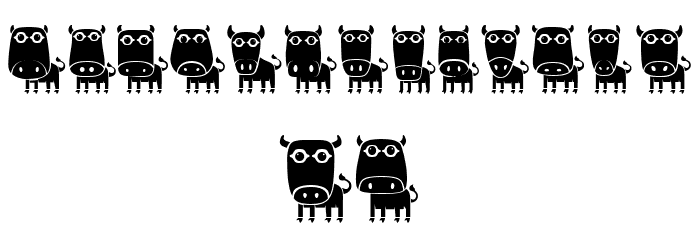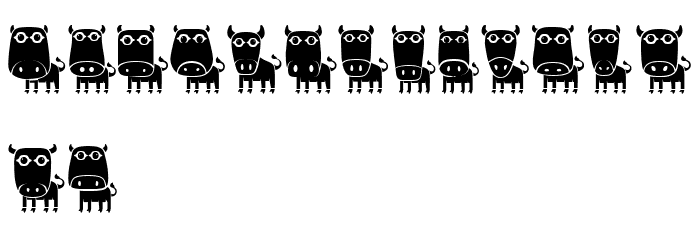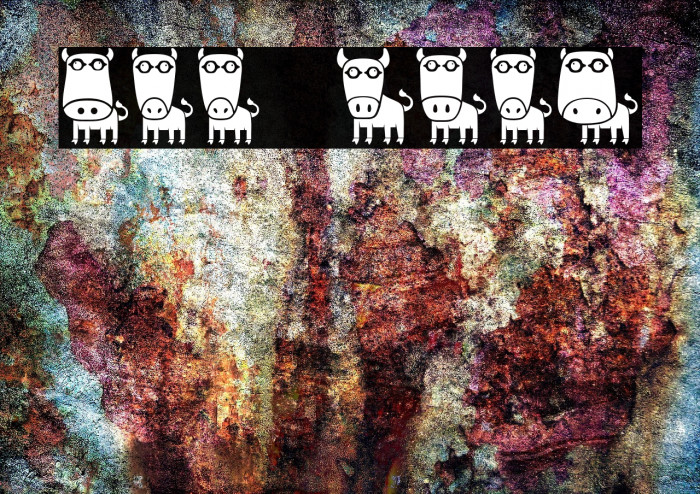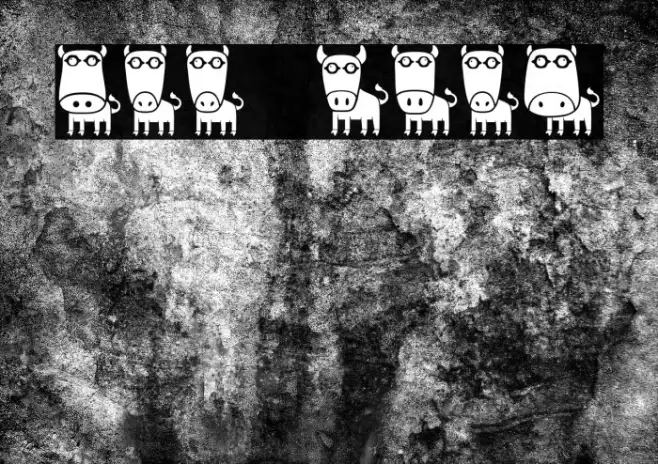
Bulls Regular Font
This font features a playful and whimsical design, with each character represented by a stylized bull figure. The bulls are cartoon-like, with exaggerated features such as large eyes and horns, giving the font a unique and humorous appearance. The characters are consistent in style, maintaining a uniform look across both uppercase and lowercase letters, as well as numbers and special symbols. The font is highly decorative, making it suitable for creative and informal projects. Its bold and distinctive style ensures that it stands out, making it ideal for attention-grabbing designs.
A playful, bull-themed decorative font with cartoon-like characters.
- Proposed Projects: Ideal for children's books, playful branding, party invitations, and novelty items.
- Overall Style: Whimsical, Playful, Humorous
- Use Case: Logos, Posters, Invitations